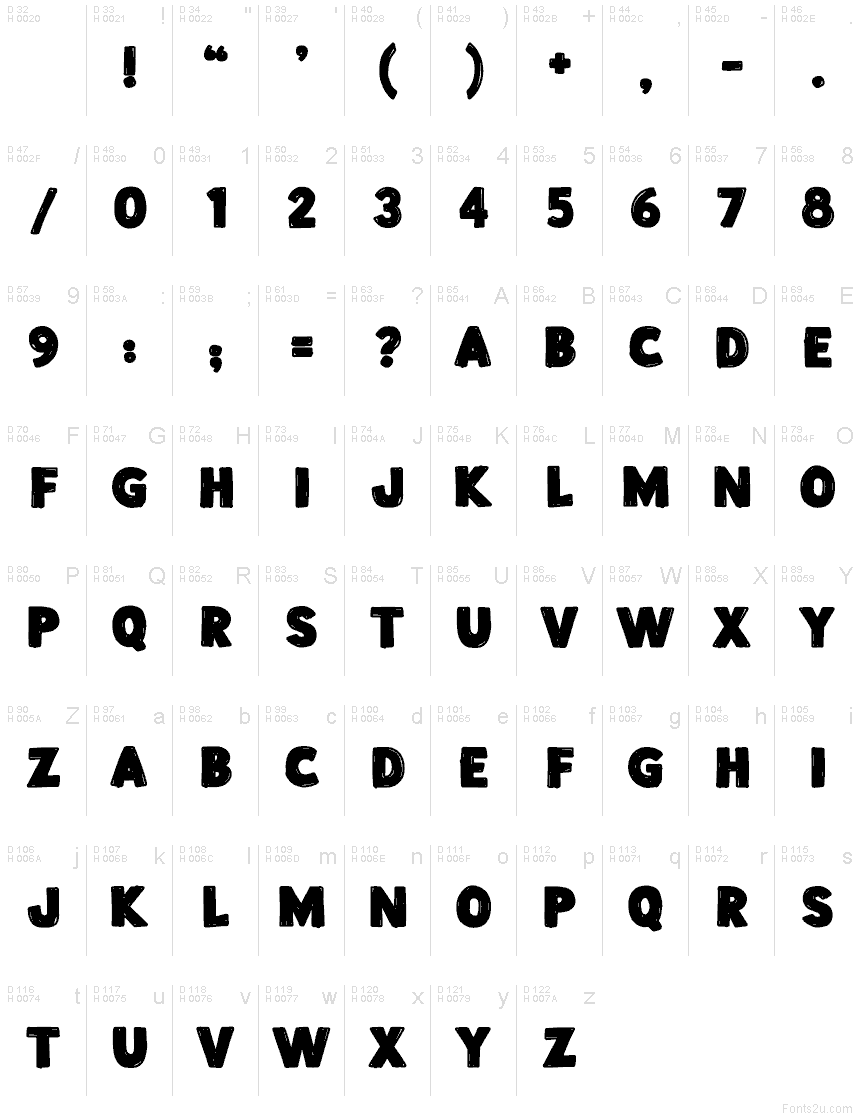
Handron Solid Filled
Handron Solid Filled font by Mark L is a free cartoon display typeface in the Handron family that feels like it’s been painted thickly with a chunky marker. The letters are bold, rounded, and tightly packed, with inky, scuffed interiors that give every word a pleasantly worn, tactile look. It has the energy of doodles in the margins of a notebook—playful, loud, and a bit messy in all the right ways.
Using Handron Solid Filled instantly makes text look shouted, not spoken, so it shines on kids’ posters, comic covers, game logos, YouTube thumbnails, stickers, and playful packaging. This free font holds up best at larger sizes where its rough, filled texture really shows. For supporting text, pair it with a simple geometric sans to keep things readable while Handron does the heavy lifting in your headlines.